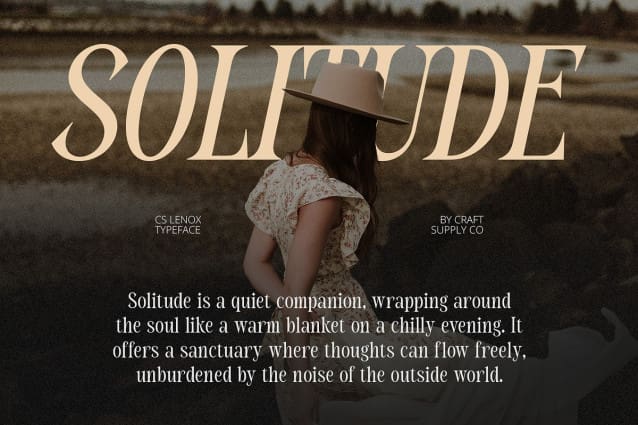
CS Lenox Font
CS Lenox Font is a modern condensed serif font that embodies a harmonious blend of classic beauty and contemporary design. Its sleek lines and sophisticated characteristics create a refined aesthetic that appeals to a discerning audience. With its elegant proportions and graceful curves, CS Lenox stands out as a versatile typeface suitable for various upscale applications. The fine details on the serifs add an extra layer of charm, elevating the overall impression of any text it adorns.
Versatility for Luxury Branding Perfectly suited for the beauty, fashion, and luxury industries, CS Lenox delivers a sense of sophistication that resonates with high-end branding. Its compact and structured form ensures excellent visibility across various mediums, from digital platforms to printed materials. Whether used in elegant logos, promotional campaigns, or editorial layouts, this font captures attention while maintaining an air of subtlety and grace.
Captivating Visual Appeal CS Lenox exudes a captivating visual appeal that makes it ideal for designs aiming to convey class and refinement. The elegant vibe of this font enhances the storytelling aspect of any project, making it particularly effective for brands that seek to create a strong emotional connection with their audience. Its well-balanced letterforms and distinctive style make it a standout choice for packaging, invitations, and advertising that require a touch of elegance.